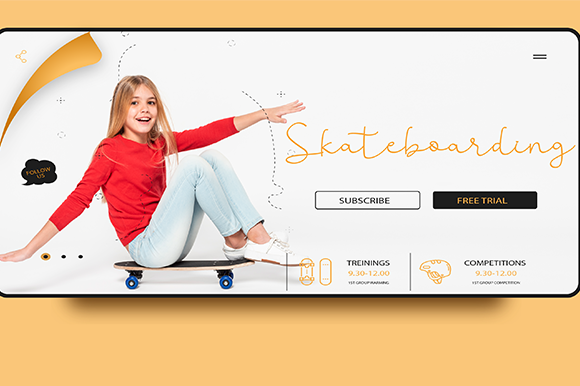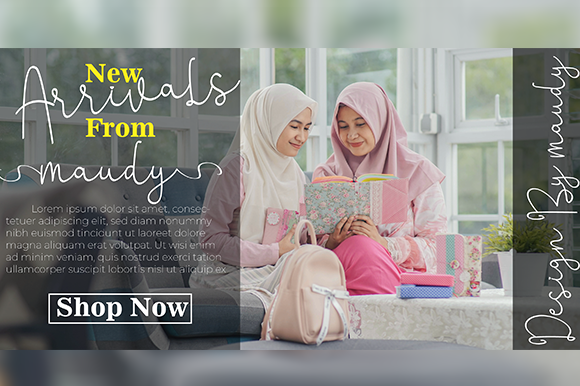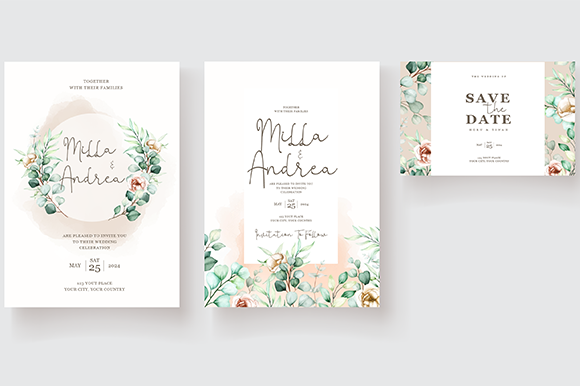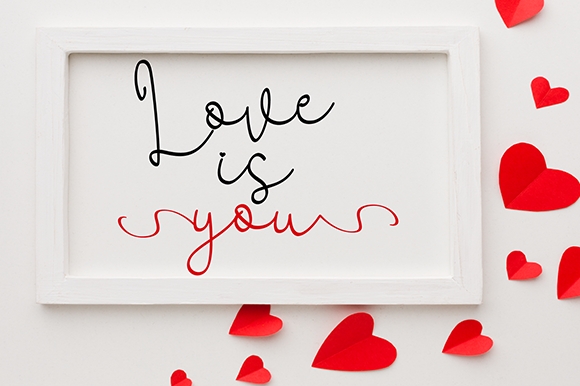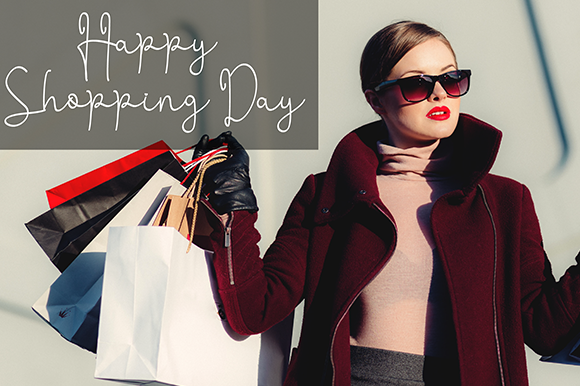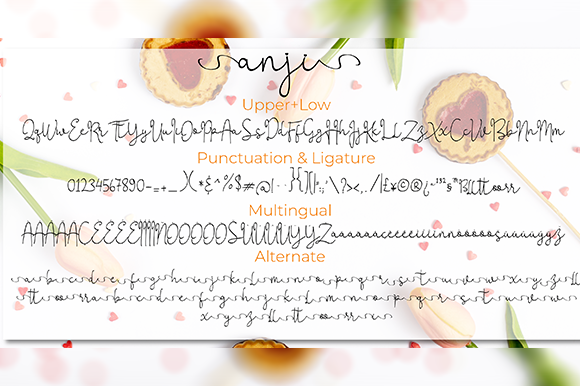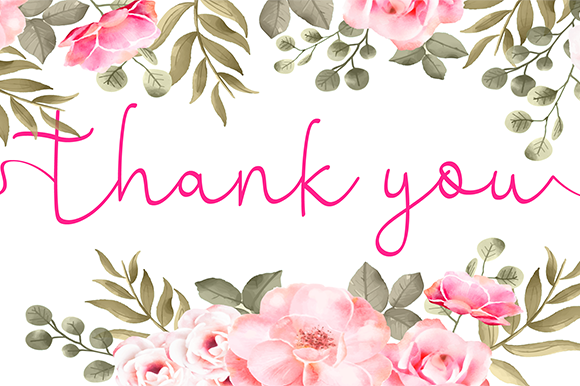
About Anji Font
Anji is a delicate, elegant and flowing handwritten font. It has beautiful and well balanced characters and as a result, it matches a wide pool of designs. Anji features a varying baseline, smooth lines, gorgeous glyphs and stunning alternates.